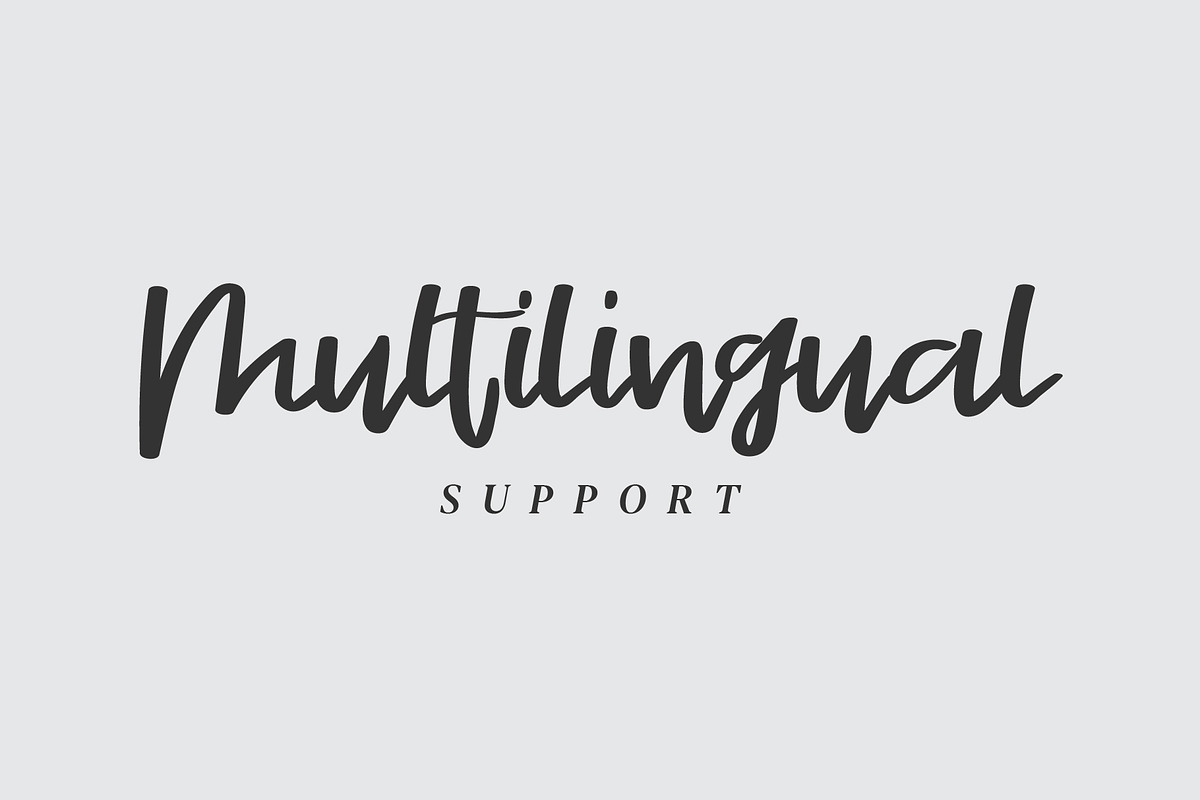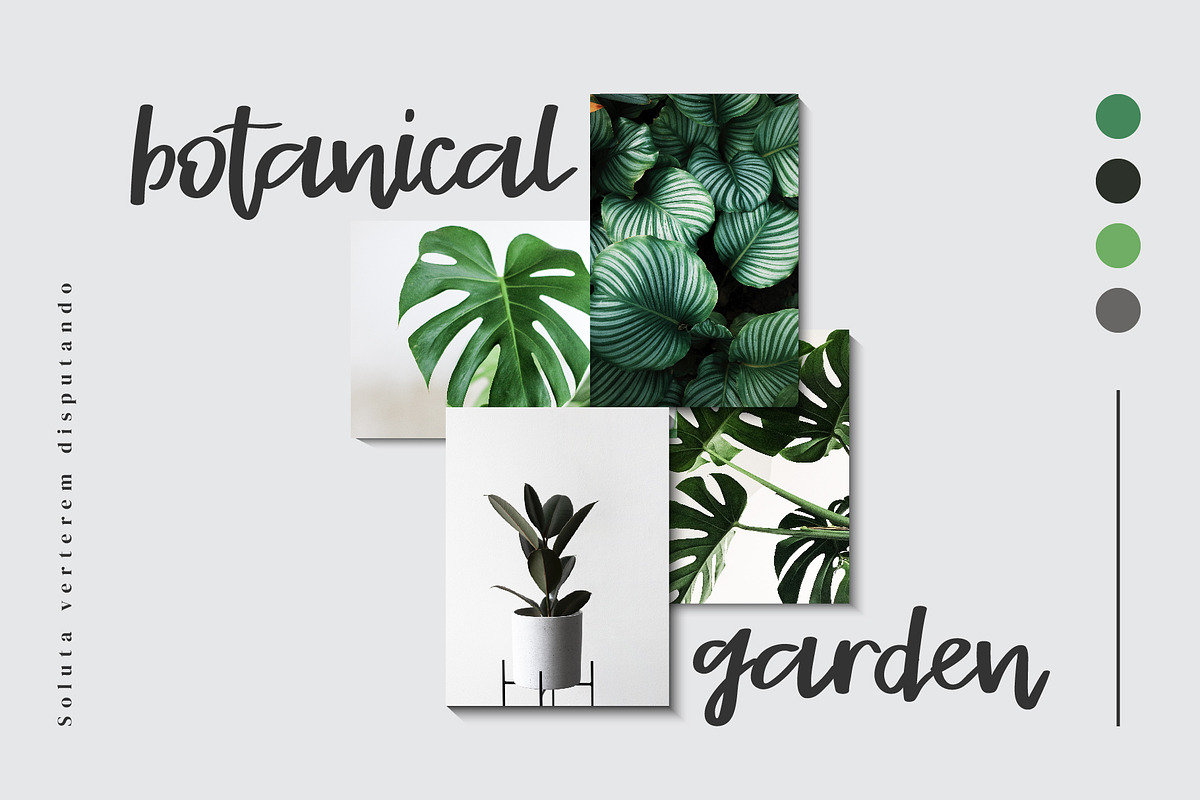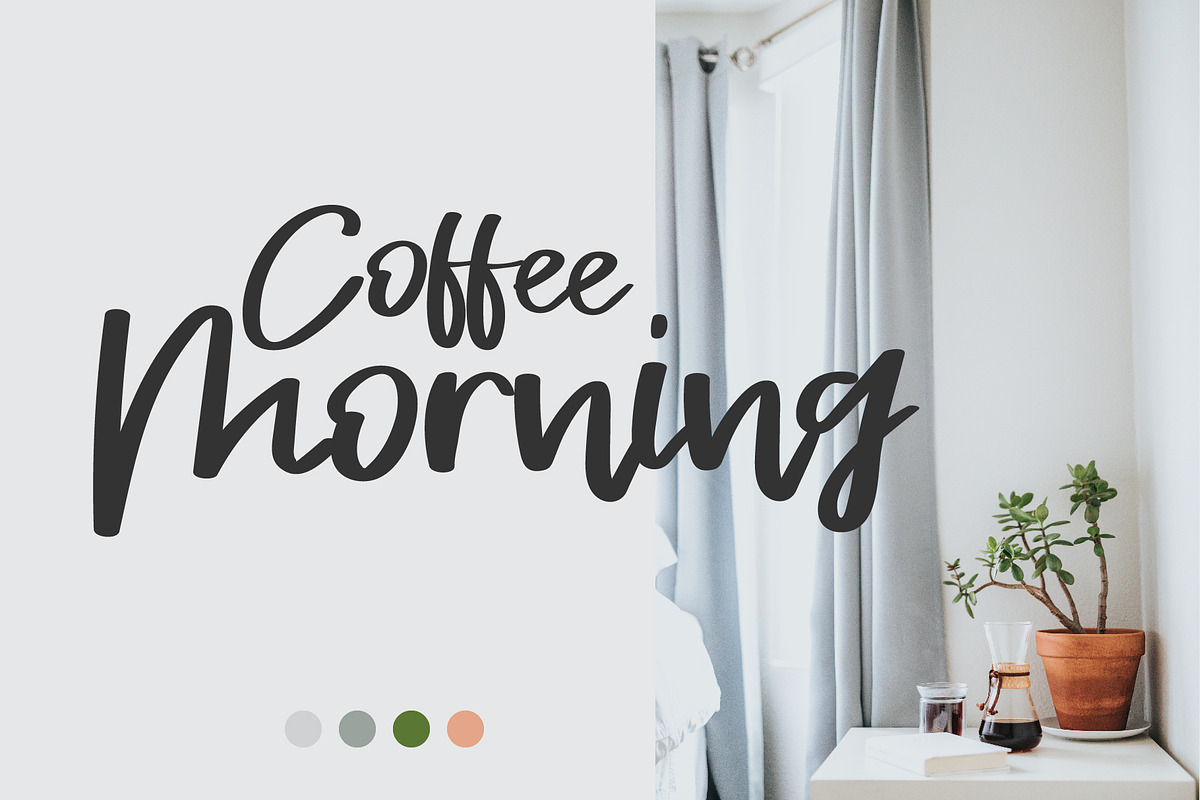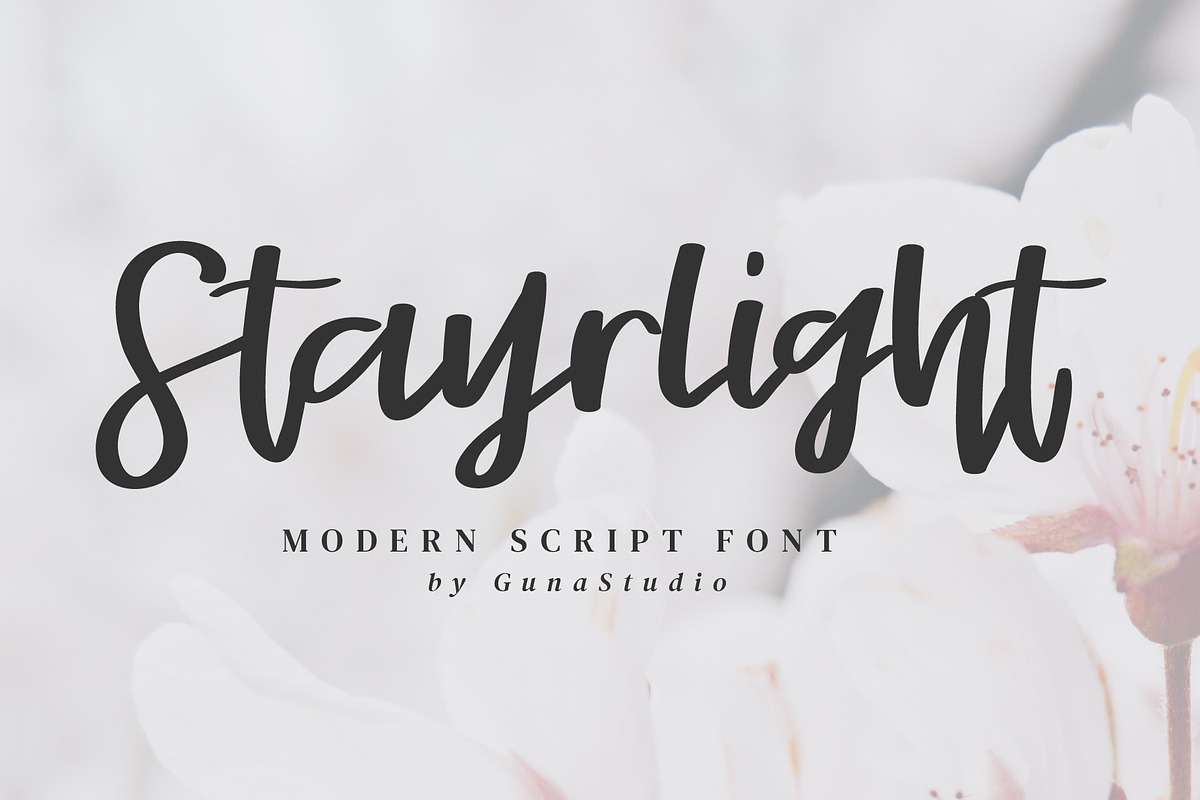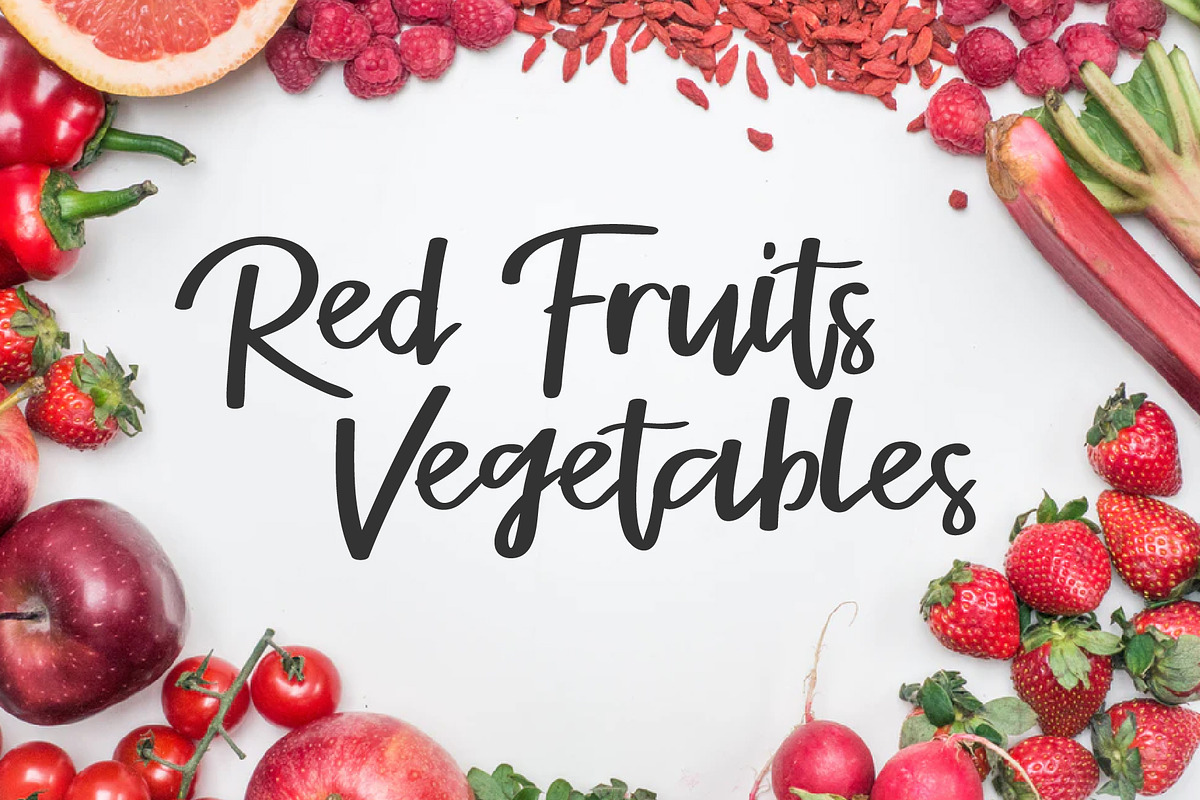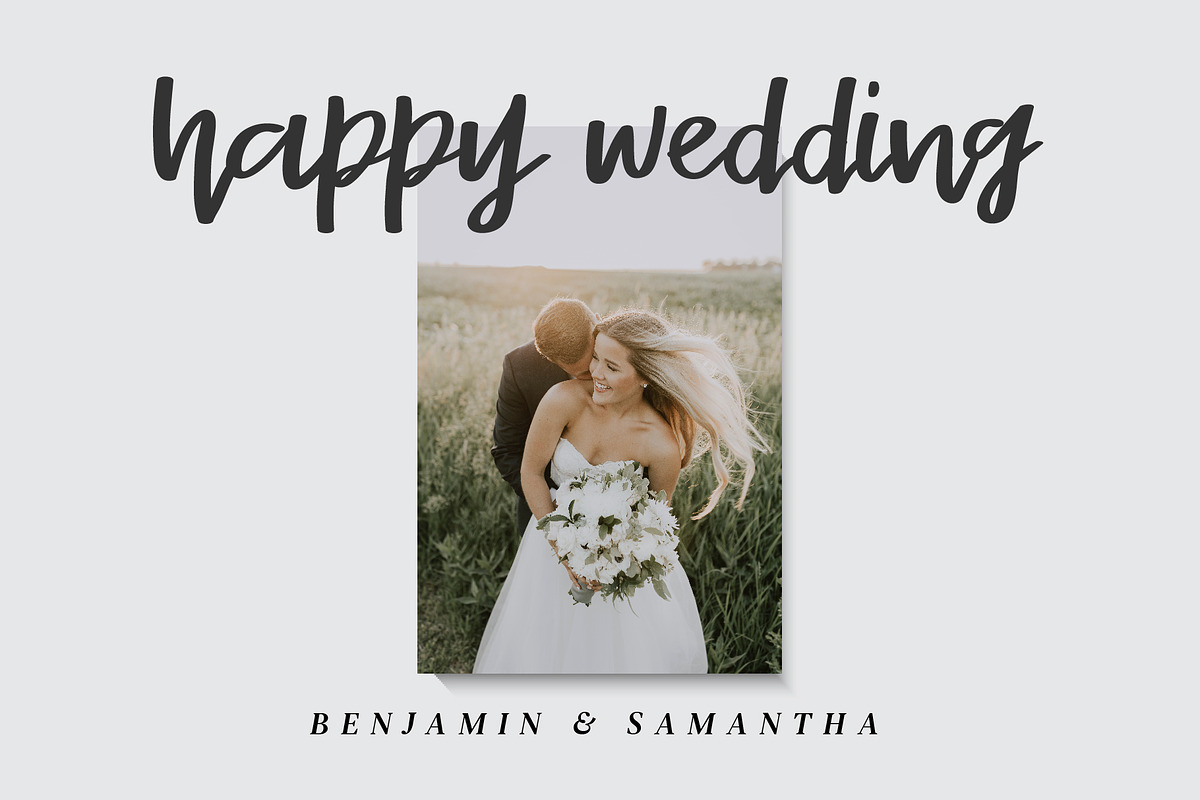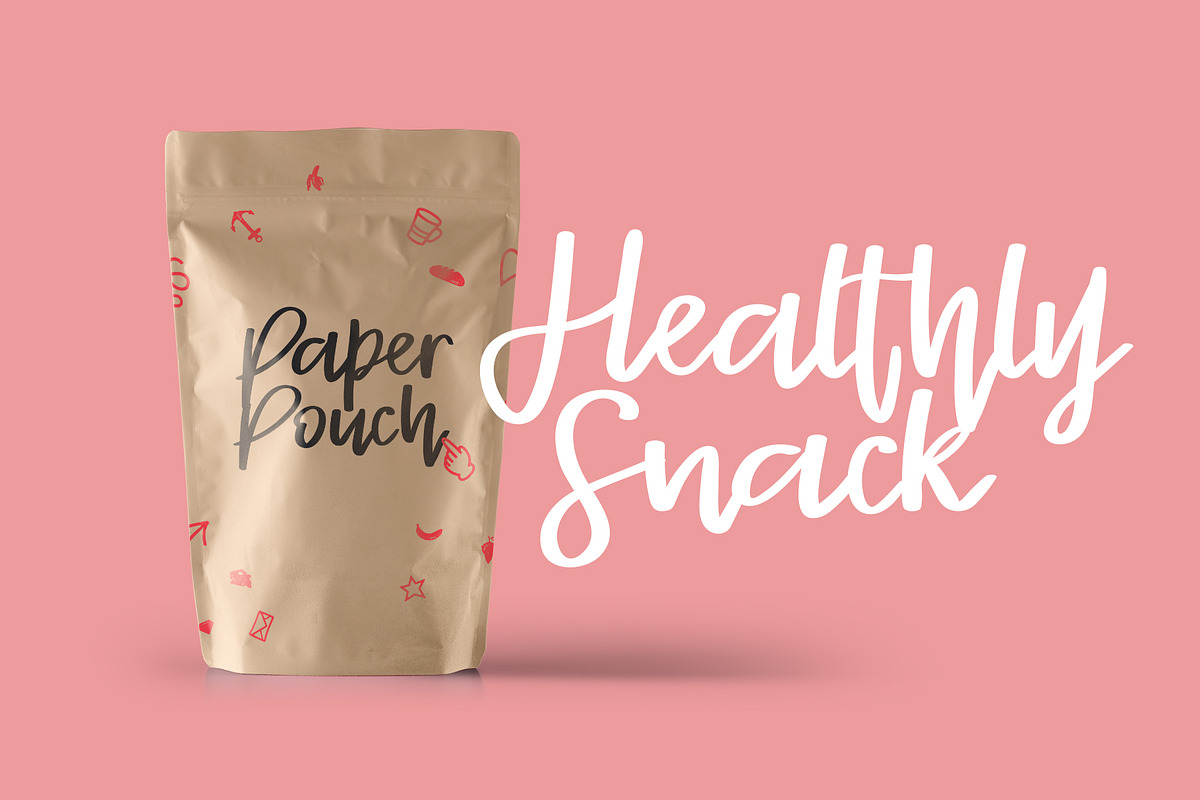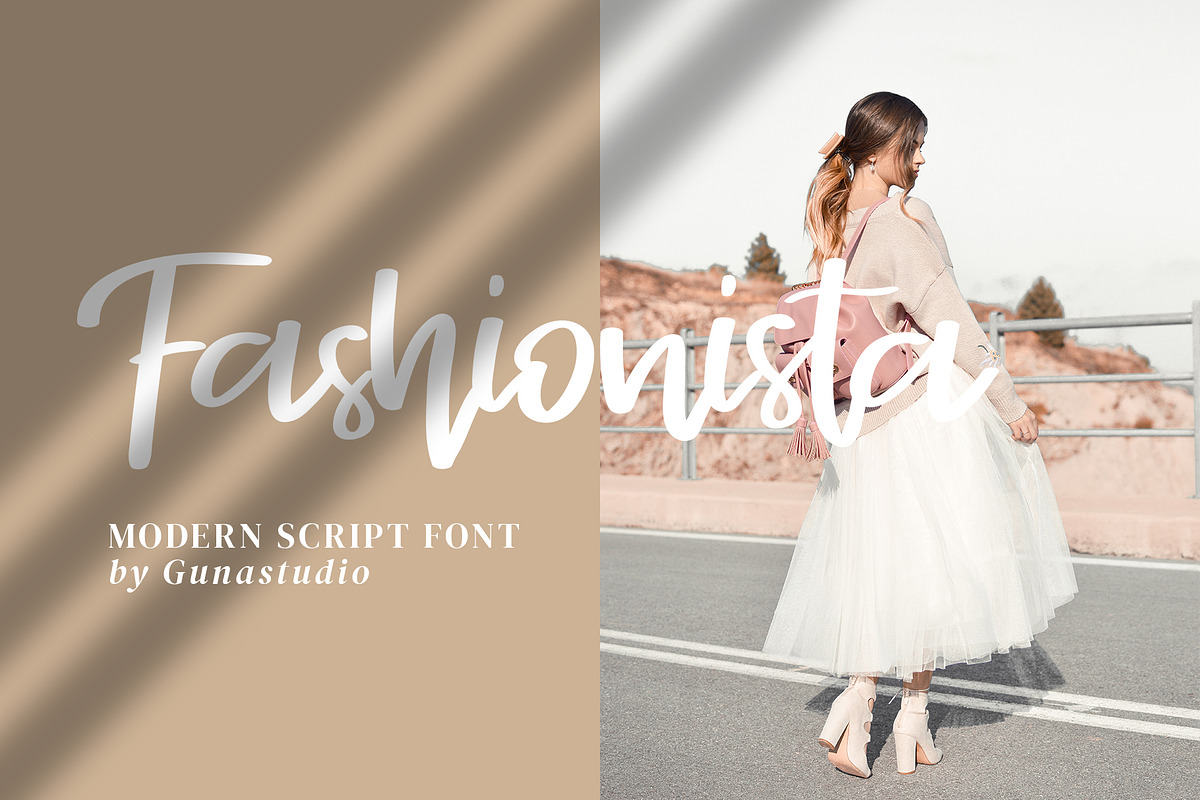
Stayrlight Modern Script Font
Proudly introducing the new font: Stayrlight font modern script font
Stayrlight Font will be perfect for many different projects such as logos & branding, invitation, poster, flyer, wedding designs, social media posts, advertisements, product packaging, product designs, label, photography, watermark, special events or movie poster title just like what I did on the preview above.
Stayrlight Modern Script Font by Guna Studio fits naturally into Branding, posters, packaging, typography.